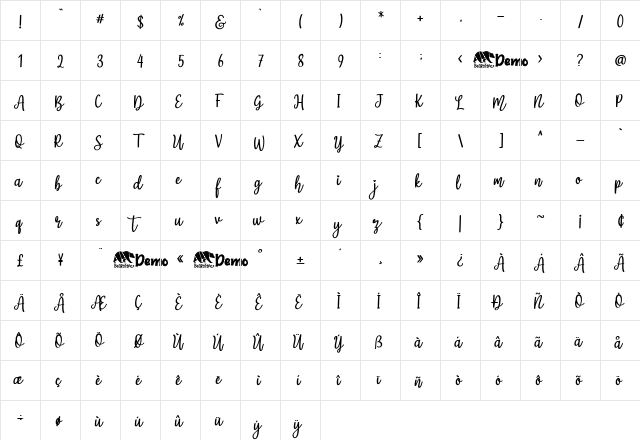
magic love Regular
| Foundry | dianhaniff |
| Designer | dianhaniff |
Design Context for magic love Typeface
magic love is a composed and adaptable typeface that performs quietly and consistently across a wide range of design contexts.